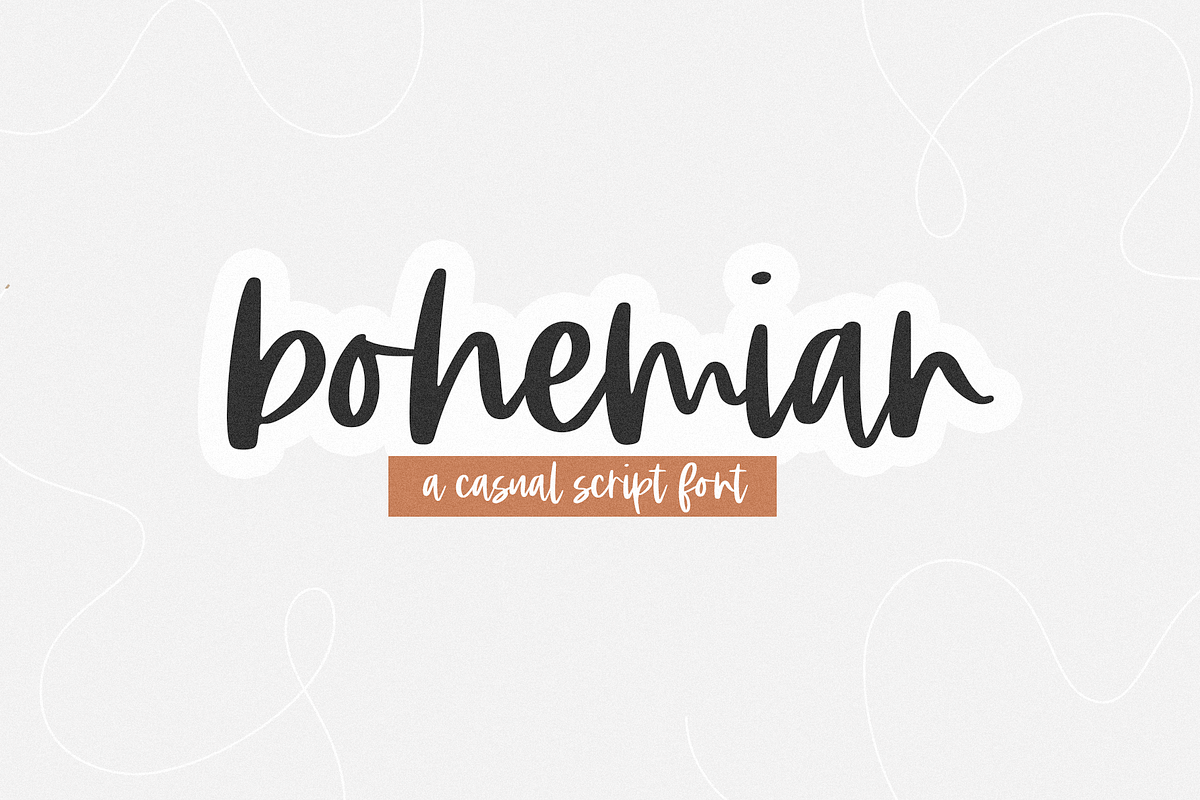
Bohemian | Casual Script Font Free Download
Bohemian | Casual Script Font Free Download is a relaxed and stylish handwritten typeface that perfectly captures a carefree, artistic vibe. With its fluid strokes, natural curves, and laid-back elegance, this font is ideal for lifestyle branding, social media graphics, wedding invitations, blog headers, and creative product packaging.
Its casual script style gives your designs a personal and approachable feel, while still maintaining a sense of trendiness and sophistication. You’re welcome to test it out with a free download, but a commercial license is required for any professional or profit-based use.
Infuse your designs with creative freedom and flair using Bohemian | Casual Script Font Free Download—a must-have for anyone looking to add a handcrafted, boho-chic touch to their typography collection.